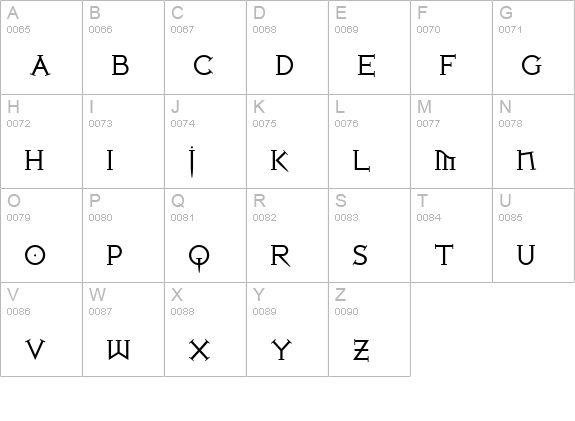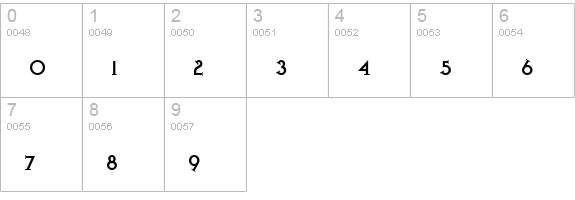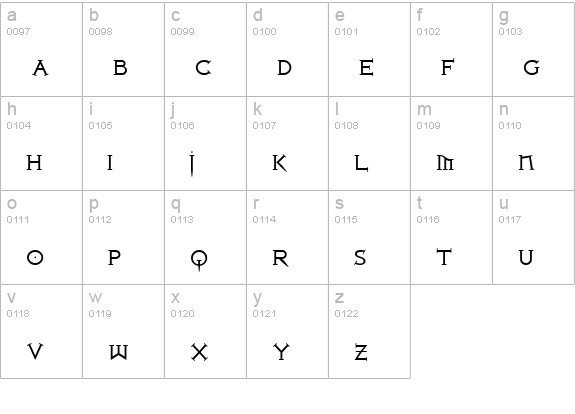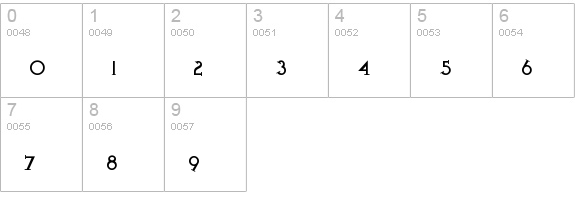
Introducing Iron League Smallcaps font, a stunning typeface that combines elegance with a touch of vintage charm. This font is perfect for adding a sophisticated and classic feel to your designs. With its unique smallcaps style, Iron League Smallcaps font offers a refined and timeless look that will make any text stand out. What sets Iron League Smallcaps font apart is not only its impeccable design but also its availability. This font is freely available to download at FontsMarket.com, making it accessible to everyone who wants to add a touch of elegance to their projects without breaking the bank. Whether you're designing a logo, creating a website, or working on a branding project, Iron League Smallcaps font is a versatile choice that will elevate your designs to new heights. Its sleek and clean lines make it easy to read, ensuring that your message is conveyed with clarity and style. Iron League Smallcaps font is the perfect choice for those who appreciate the finer details in typography. Its delicate curves and precise letterforms create a sense of sophistication and refinement, making it ideal for luxury brands, high-end fashion, and upscale events. The versatility of Iron League Smallcaps font allows it to seamlessly blend with various design styles and themes. Whether you're aiming for a vintage-inspired look or a modern and minimalist aesthetic, this font will effortlessly adapt to your vision. Its smallcaps feature adds a unique twist, giving your designs a touch of uniqueness and individuality. So why wait? Download Iron League Smallcaps font for free at FontsMarket.com and unlock its full potential. Let this font be your secret weapon in creating stunning designs that leave a lasting impression. With Iron League Smallcaps font, your projects will exude elegance and sophistication, setting you apart from the crowd.